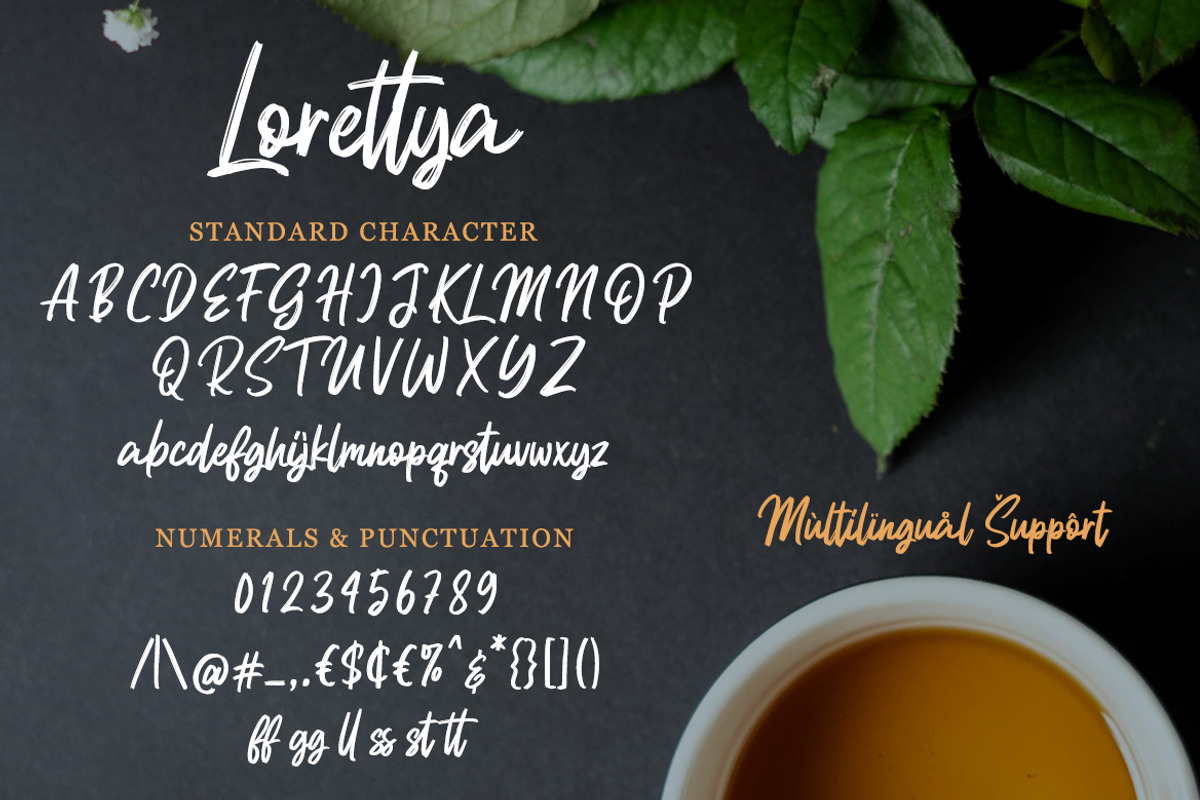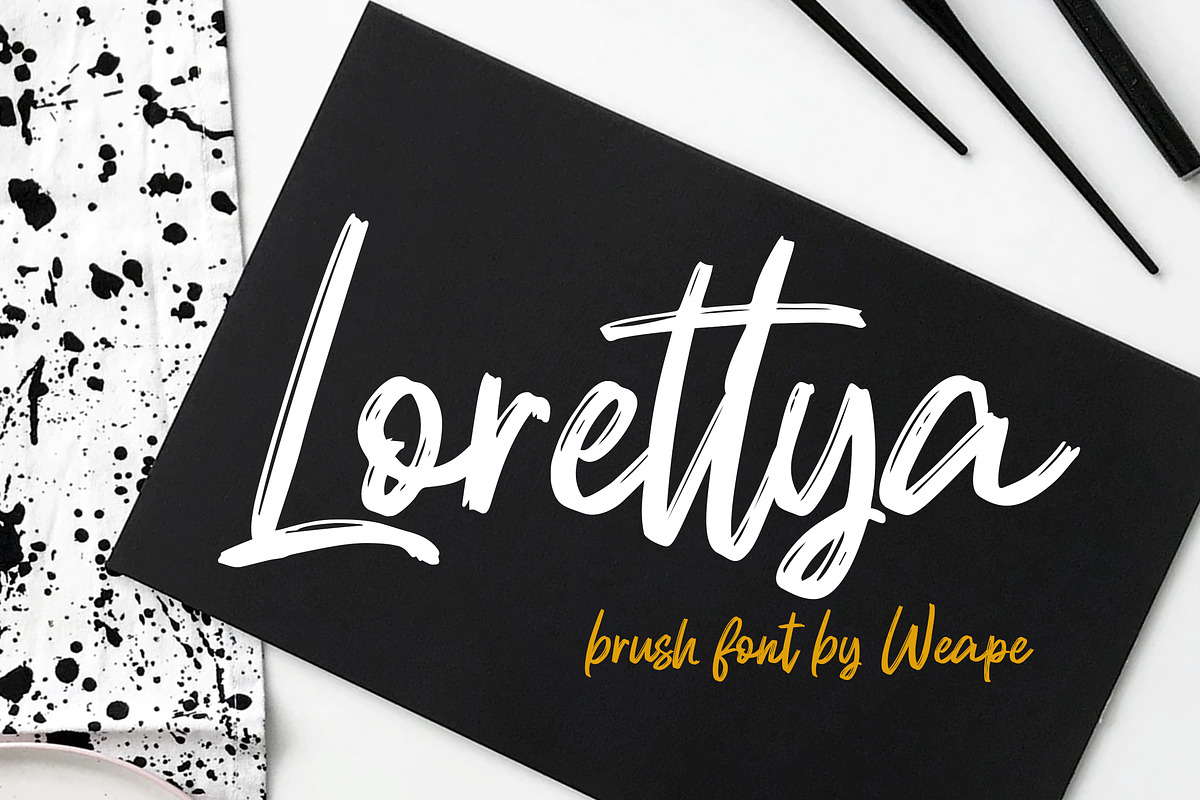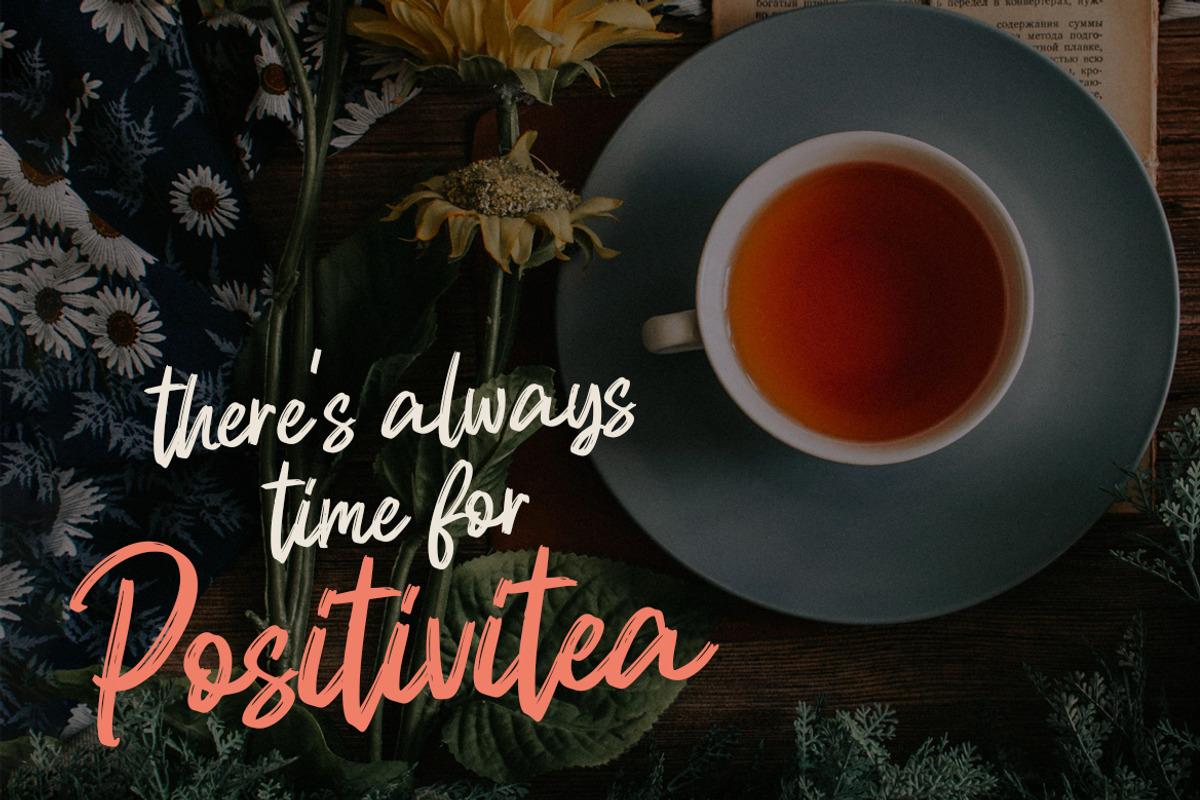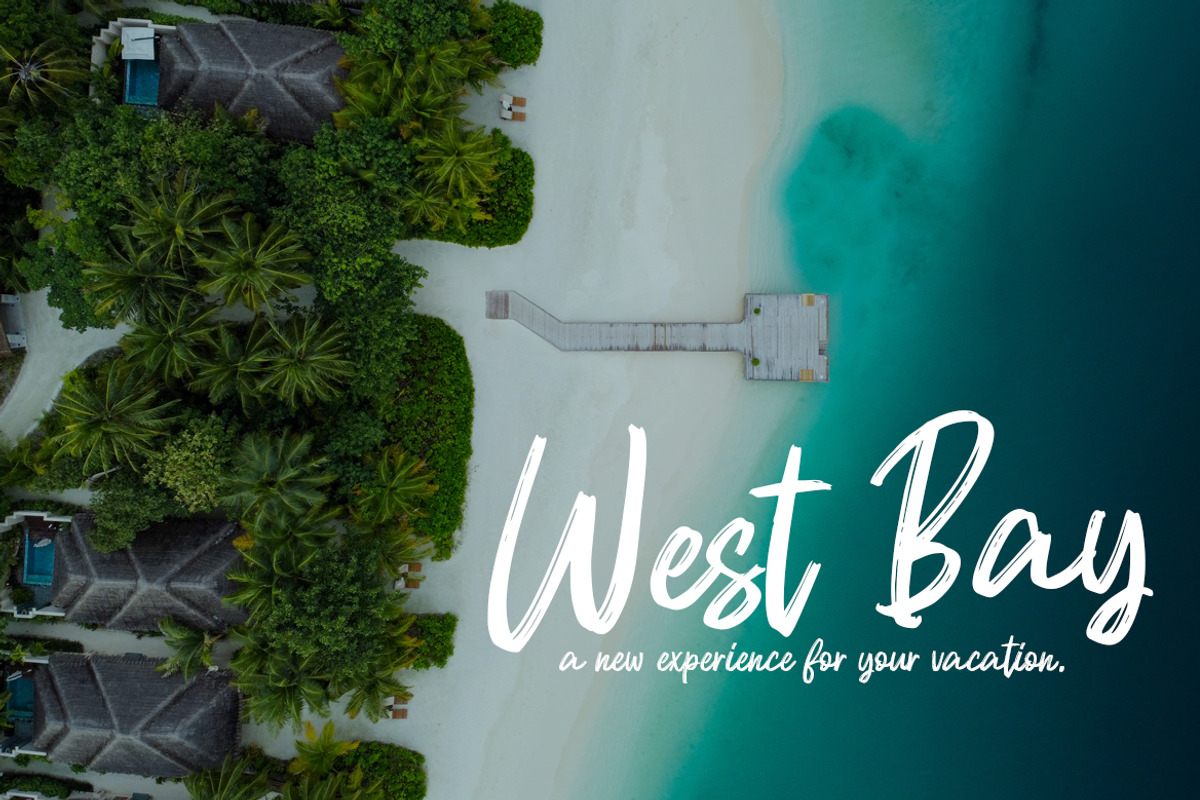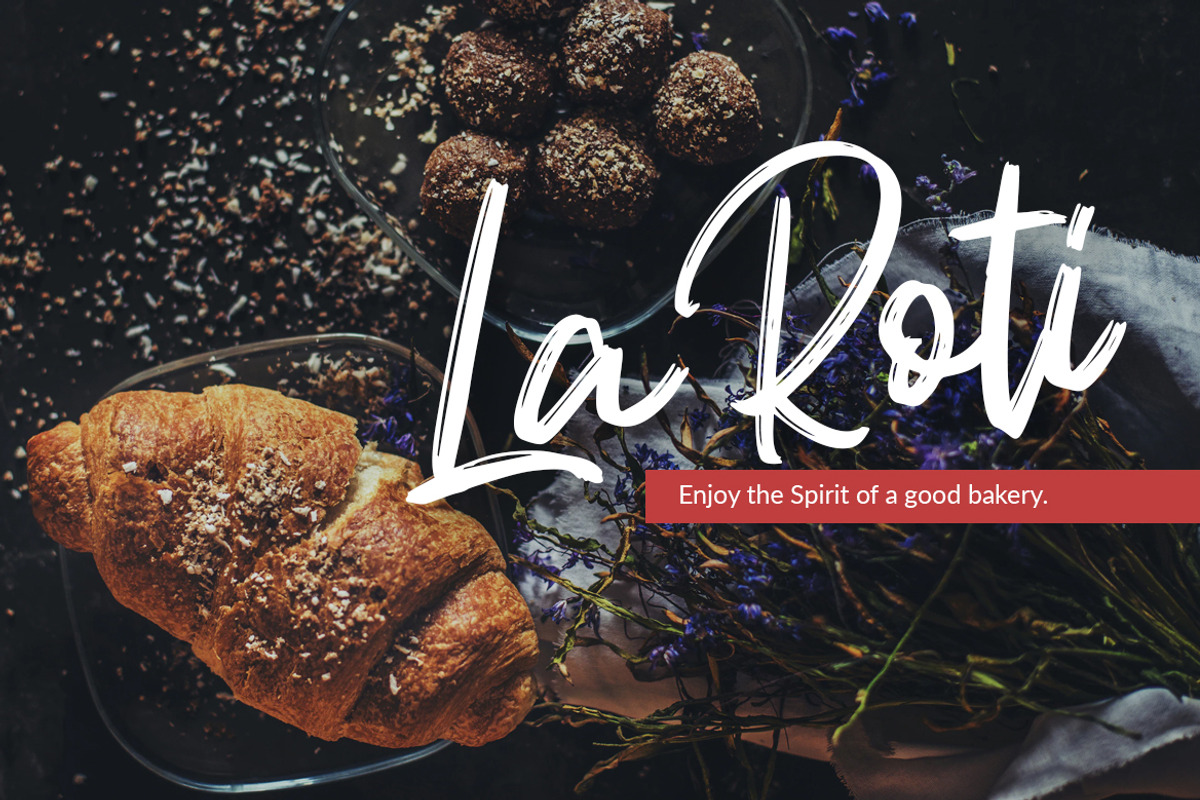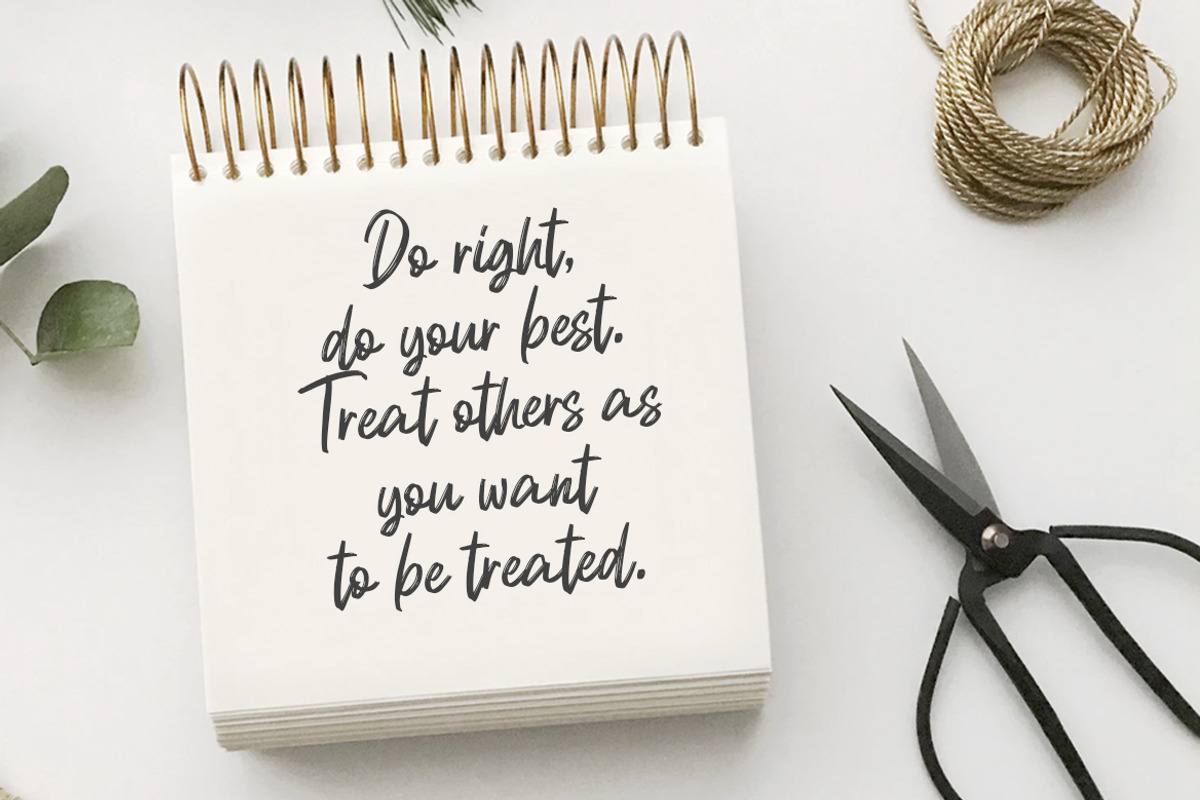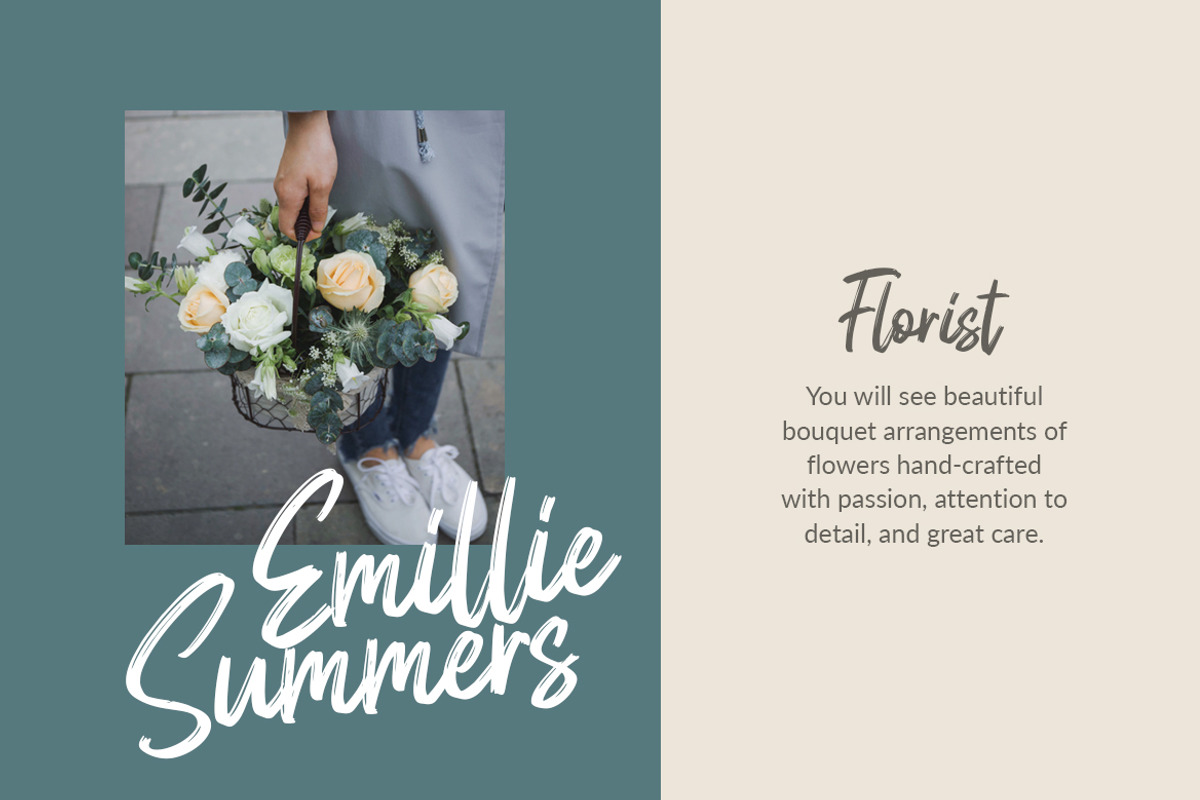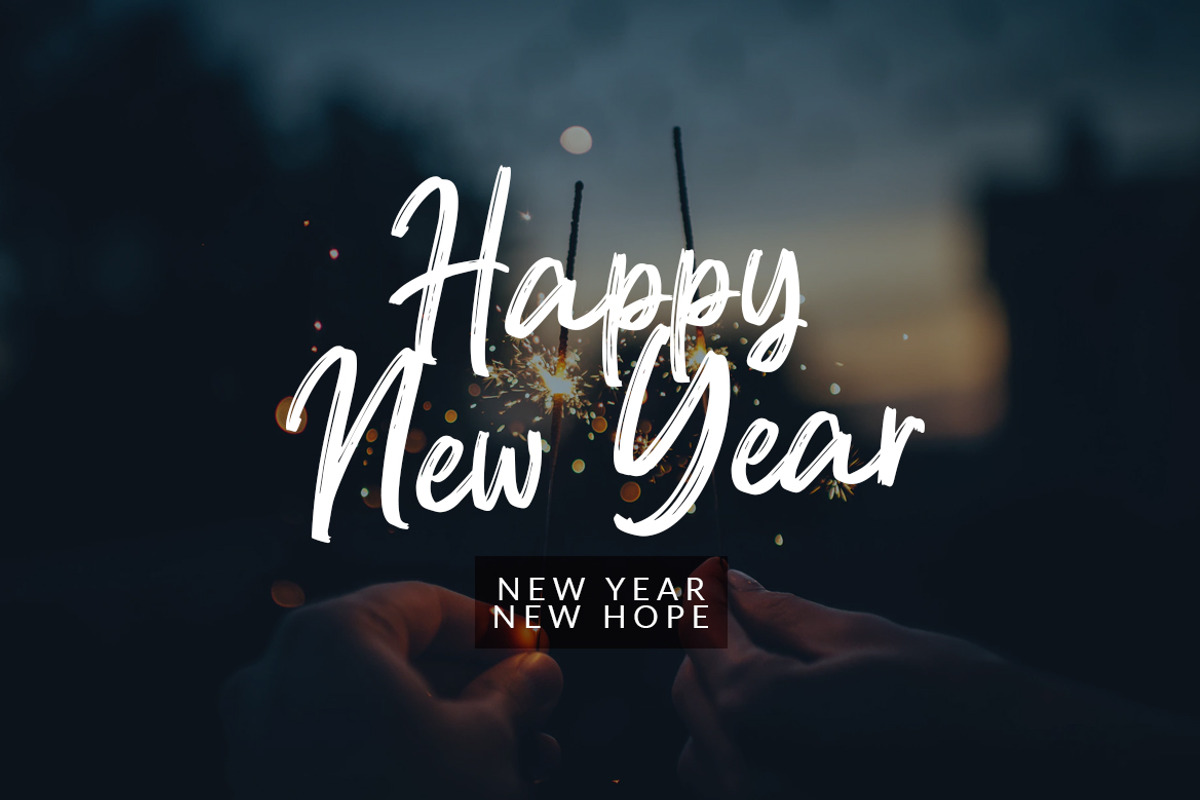
Lorettya - Brush Font
Introducing Lorettya - Brush Script Font, unique strokes make it looks natural as written by hand.
Lorettya is perfect for signature, branding, wedding, fashion, photography title, poster, social media, music album, book cover, packaging, handwritten quotes, greeting cards, and advertising.
All fonts containing upper & lowercase characters, numerals, punctuation, ligatures.